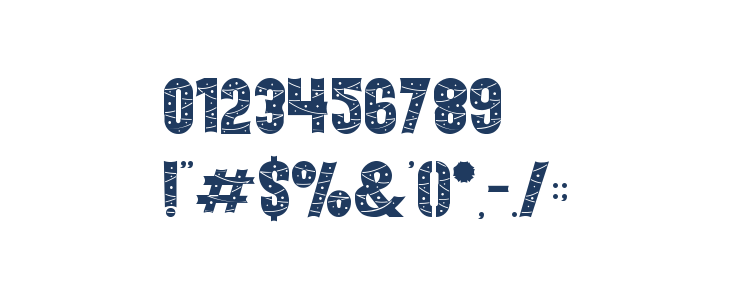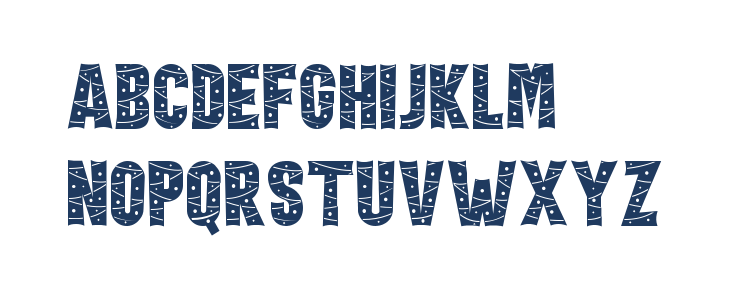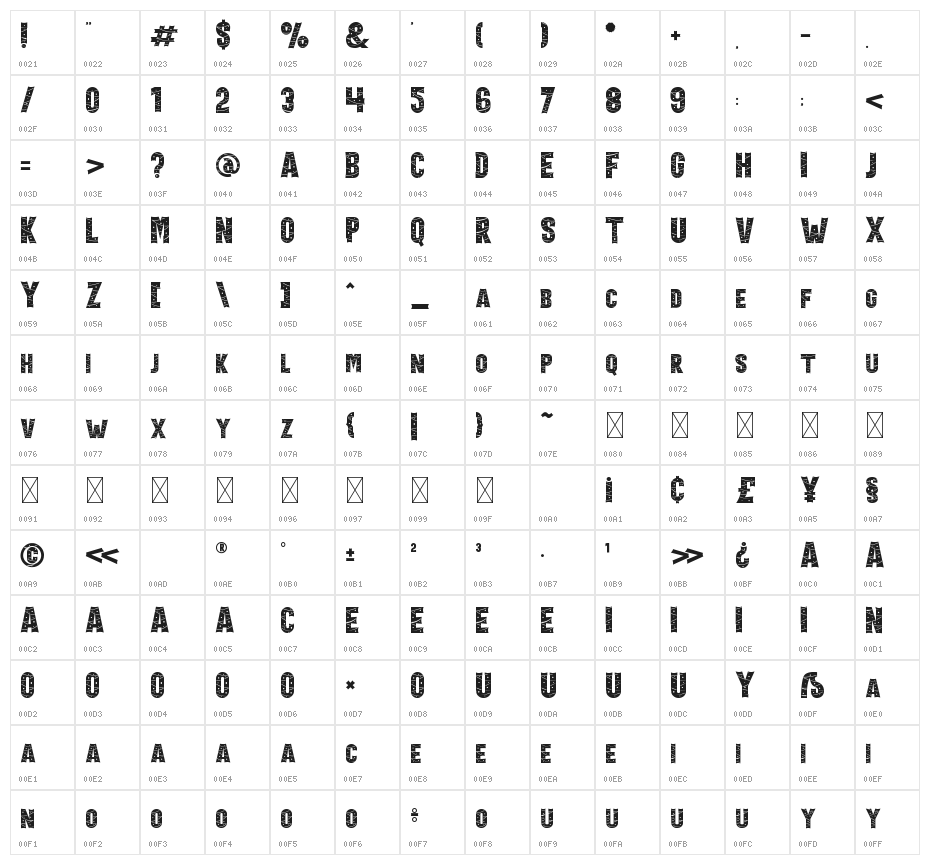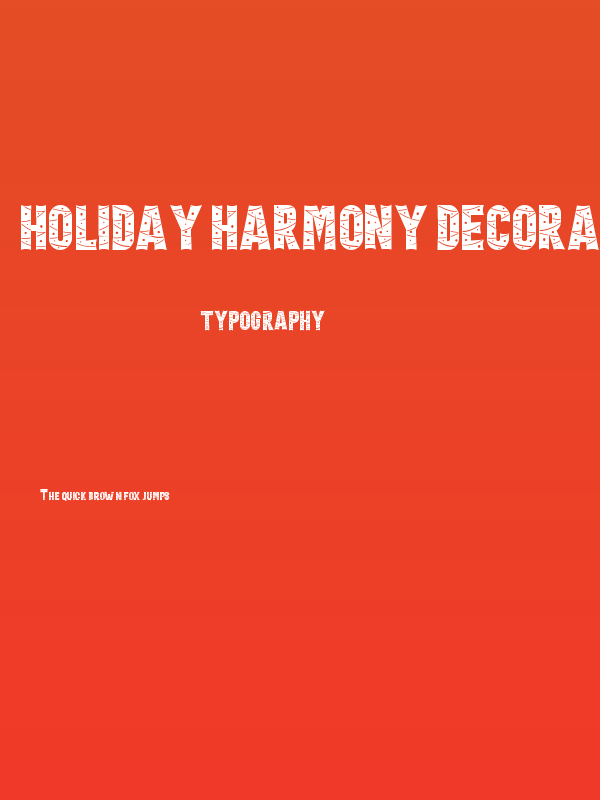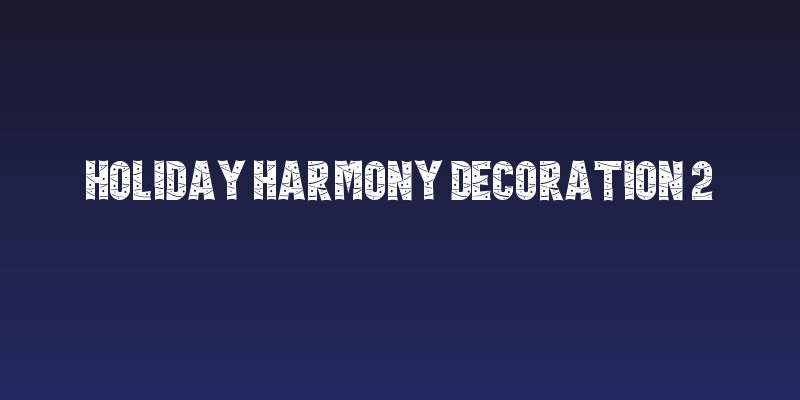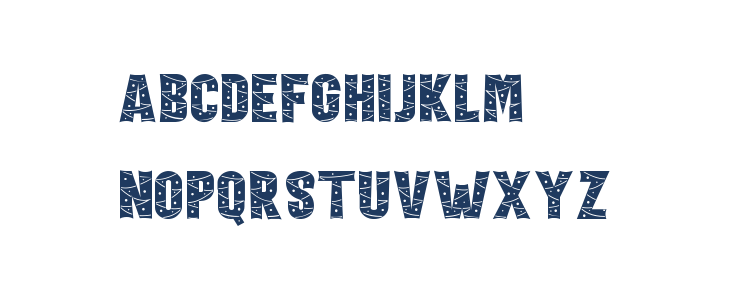
Holiday Harmony Decoration 2 Font
Holiday Harmony Decoration 2 Description
A bold, decorative display font featuring uppercase letters, numbers, and symbols with a festive pattern of dots and lines reminiscent of holiday ornaments or wrapping paper. The letterforms are blocky and geometric, with playful, irregular edges and high visual impact.
| Overall Style | Decorative, Festive, Playful |
| Use Case | Headlines, Posters, Holiday Graphics, Event Titles |
| Proposed Projects | Holiday cards, event posters, festive banners, party invitations, seasonal branding. |